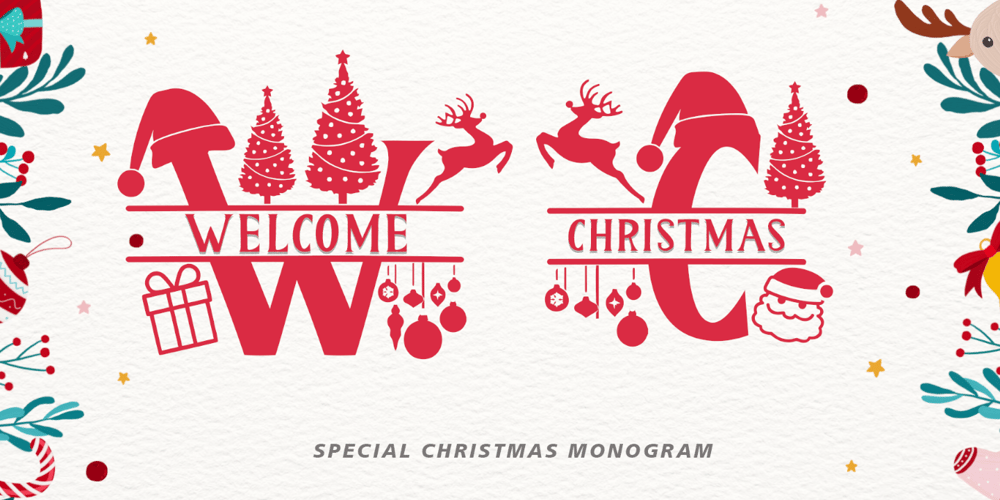
Welcome Christmas
Welcome Christmas font
Welcome Christmas Font Family was designed by Isroni Yoga Prasetya and published by Yoga Letter. Welcome Christmas contains 2 styles and family package options. “Welcome Christmas Monogram” is a monogram serif font decorated with Christmas-themed shapes. This font features monograms, uppercase, lowercase, numerals, punctuations and multilingual support. This font is perfect for winter and christmas, logos, valentines, movie titles, and more.